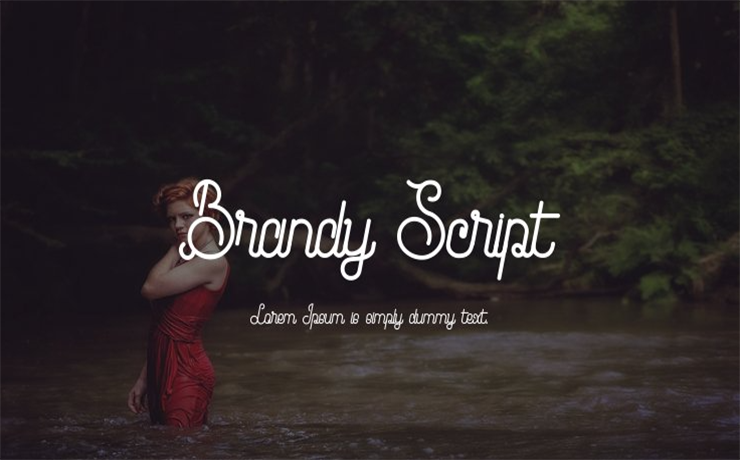
Brandy Script Font is a pretty monoline script typeface that feature would be awesome for your design projects. It could be fitted for logos, quotes, t-shirts, posters, or anything.
Lazaro took the charge of designing and publishing this elegant handmade script typeface first.
Between its uppercase & lowercase font shapes and neat texture, it becomes one of the most popular calligraphy fonts in the world. The whole structure is handmade and the designer uses only one stroke in each letter.
Another great feature is that when you put the letters together, they also give a cool texture. It looks like the designer wrote the whole texture in one fell swoop.
A collection of many amazing textures and glyphs that give you great design and layout.
Its eye catchy and beautiful look makes it perfect for logo, letterhead, invitations, posters, stylish card printing, book covers, signatures, special quotes, unique emblems, shopping bags, mugs printing, stationery, kids bags, labels, and many more.
Brandy Script Font consists of only a single regular style along with Open Type features. This single style comes with several stylistic ligatures and washes.